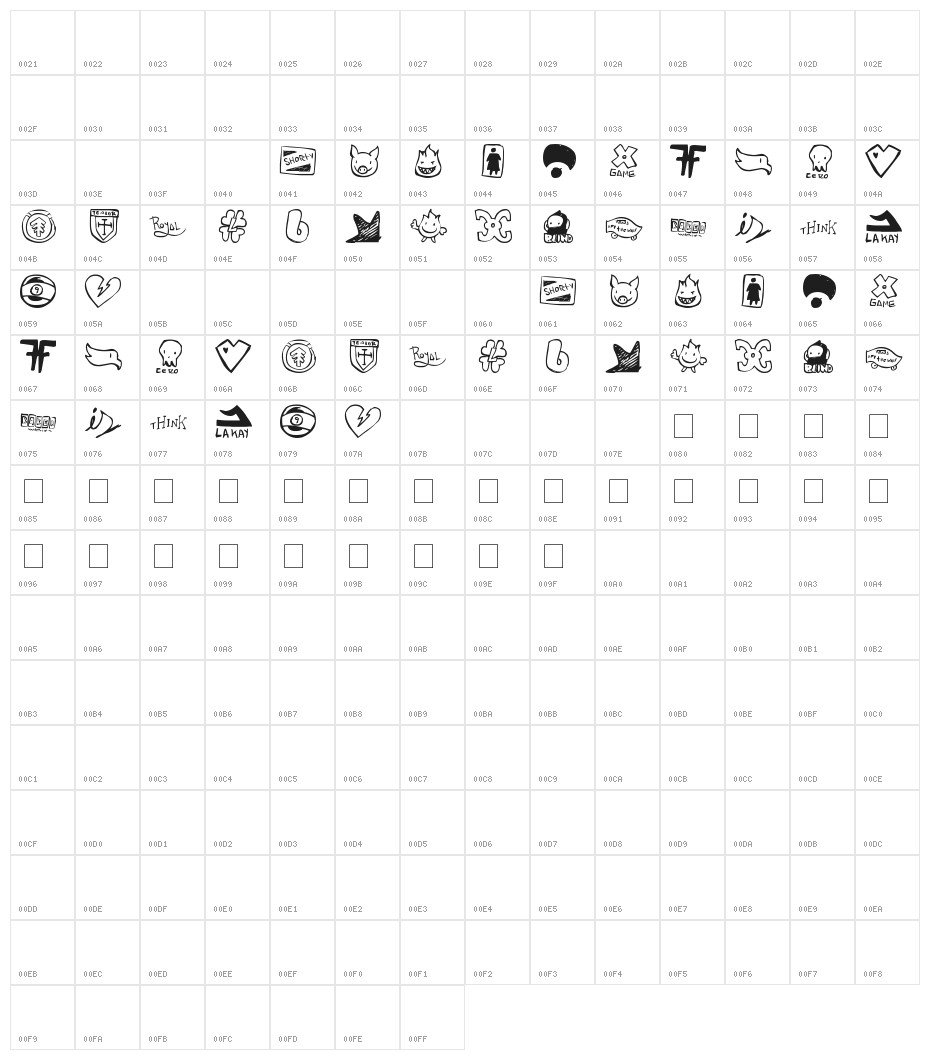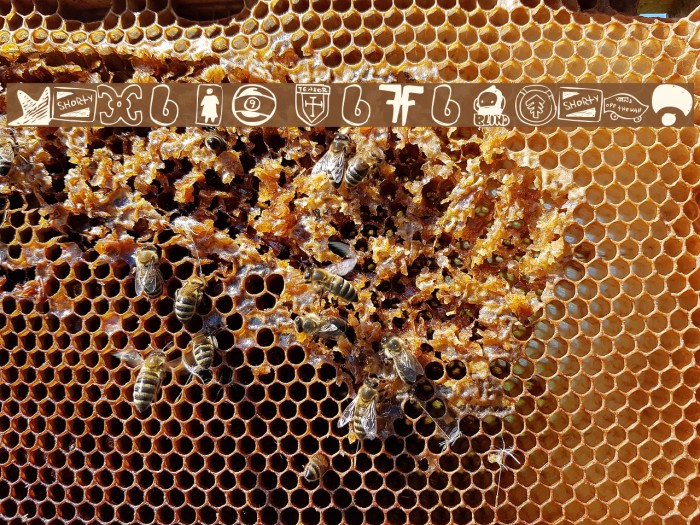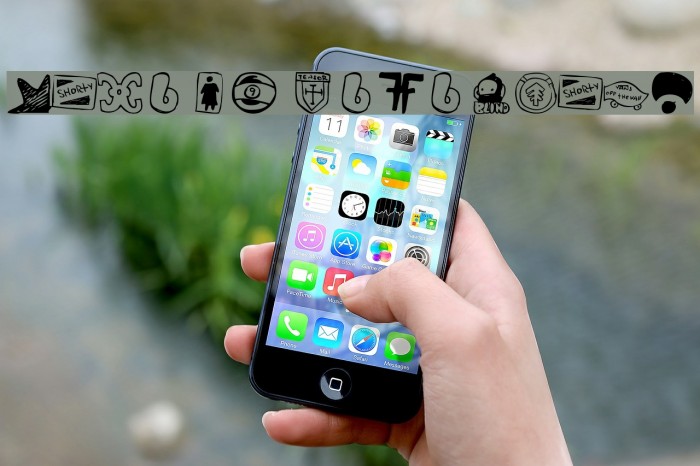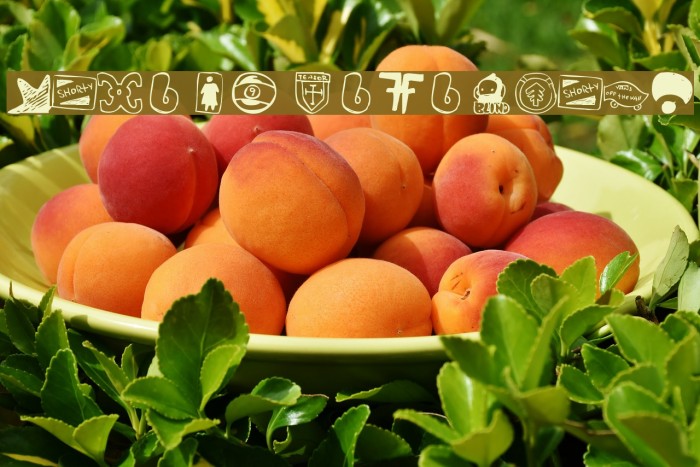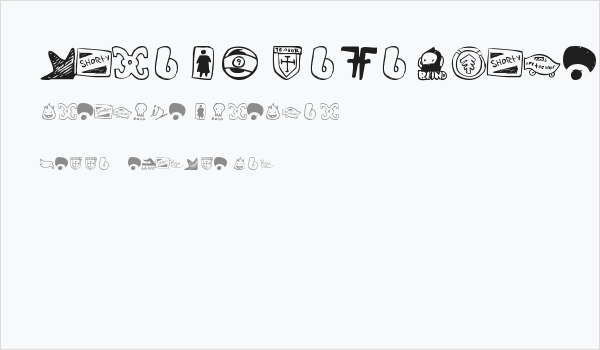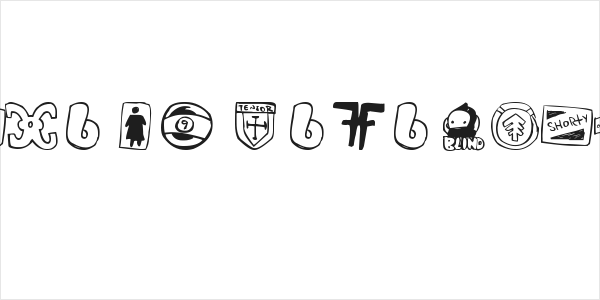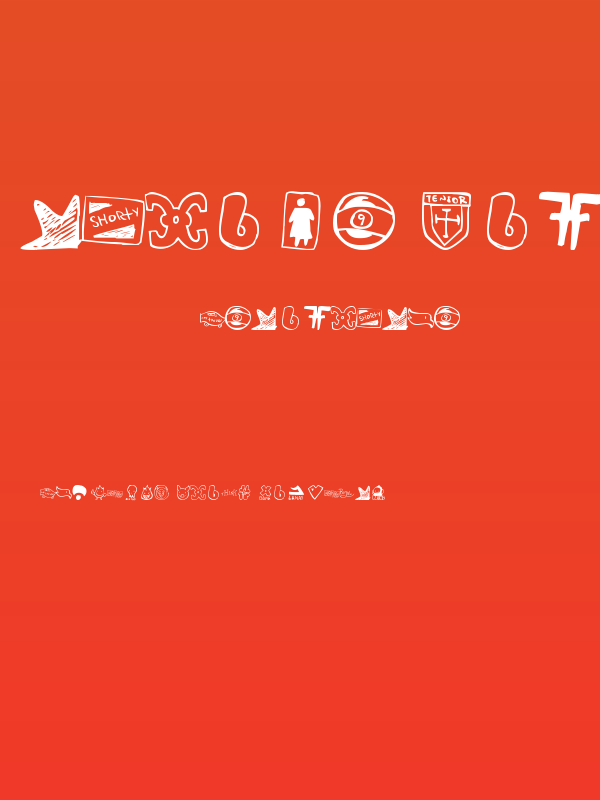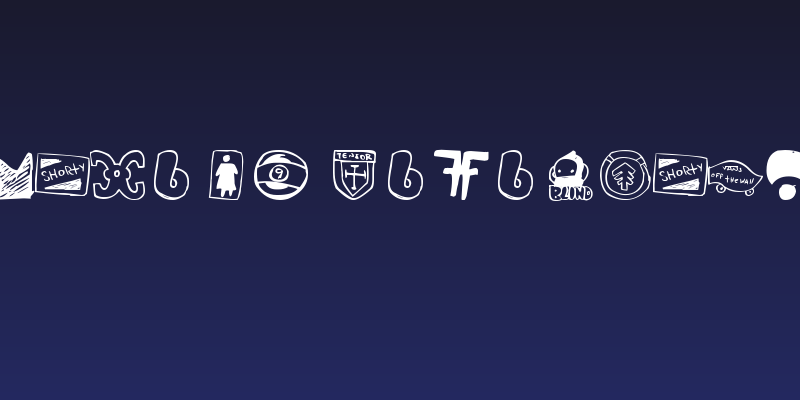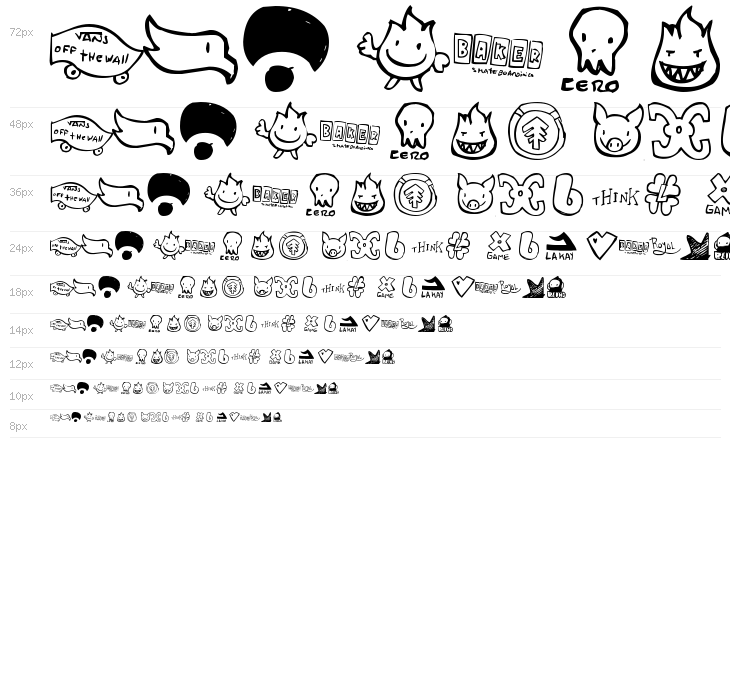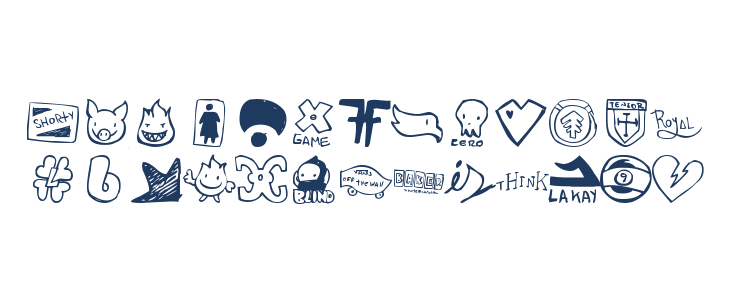
PARODY LOGOSKATE Font
PARODY LOGOSKATE Description
This collection of parody logos features a playful and creative design style, incorporating elements of humor and satire. Each logo is distinct, with bold lines and exaggerated features that capture attention. The designs are reminiscent of popular brands but with a twist, making them ideal for projects that require a touch of whimsy and originality. The logos are primarily monochromatic, enhancing their bold and striking appearance. The variety in shapes and symbols offers a wide range of visual interest, making them suitable for diverse applications.
| Overall Style | Humorous, Playful, Satirical |
| Use Case | Logos, Merchandise, Graphic Design |
| Proposed Projects | Ideal for use in satirical publications, graphic design projects, or merchandise that requires a humorous twist. |